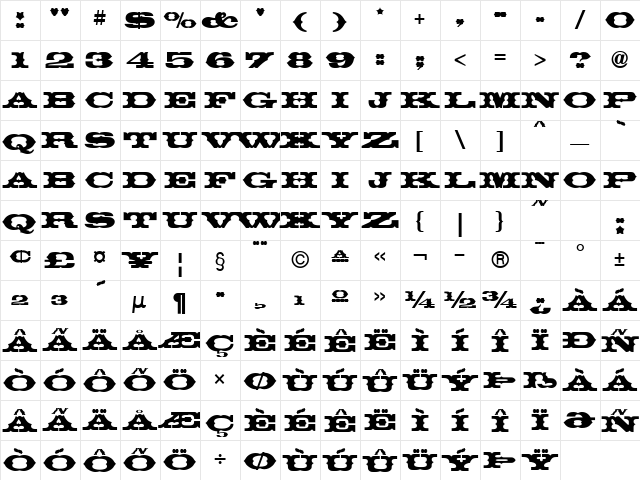
Thunderbird ICG Regular
Design Context for Thunderbird ICG Typeface
Thunderbird ICG is a composed and adaptable typeface that performs quietly and consistently across a wide range of design contexts.